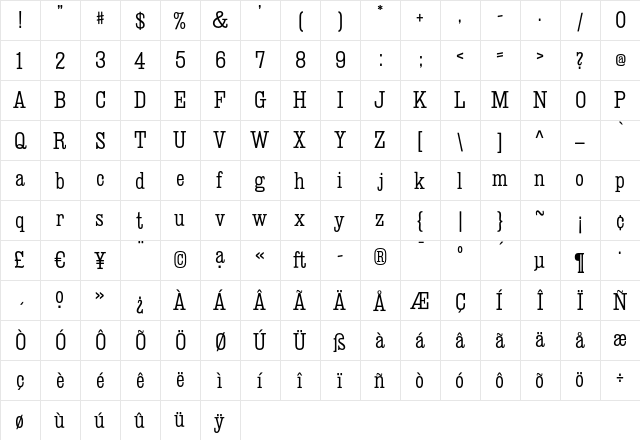
Deadwood Regular
Design Context for Deadwood Typeface
Deadwood echoes the hand-painted signage and woodblock typography of the American frontier, with a warm, rugged personality.
A natural fit for craft spirits, ranch branding, rodeo events, and Americana-inspired design work.
Font Pairing: Combine Deadwood with a simple slab or neutral sans — period-accurate companions reinforce the vintage feel without competing for attention.
Pro Tip: Use Deadwood for short, impactful bursts of text — it shines in poster headlines and product names rather than extended copy.